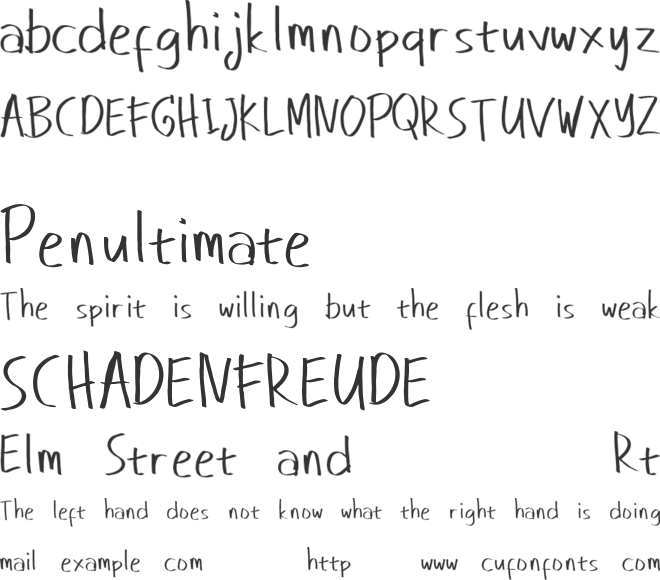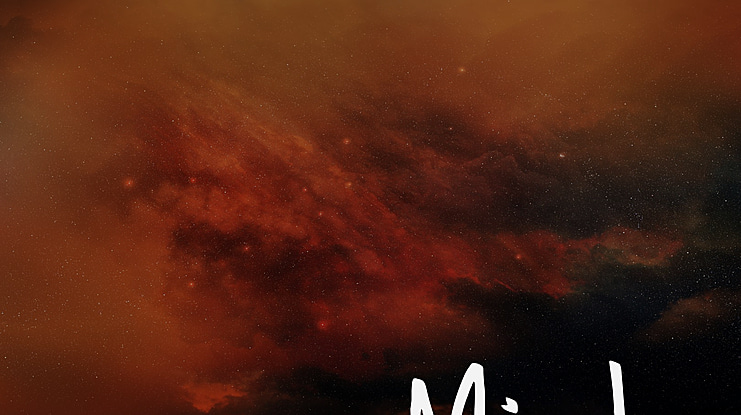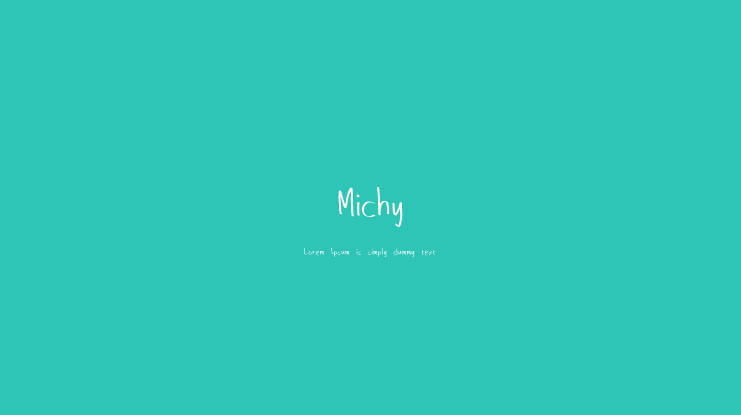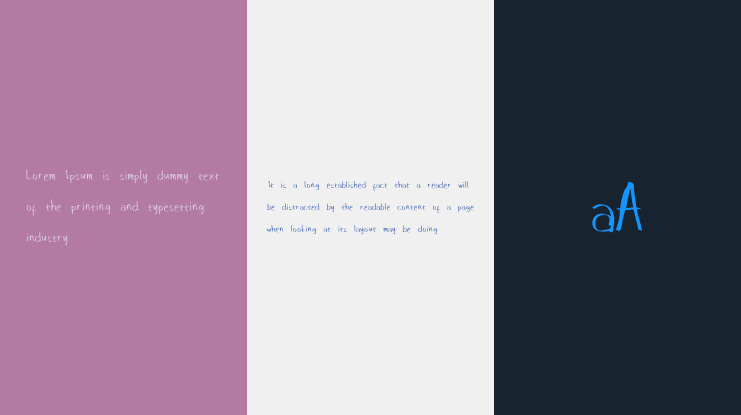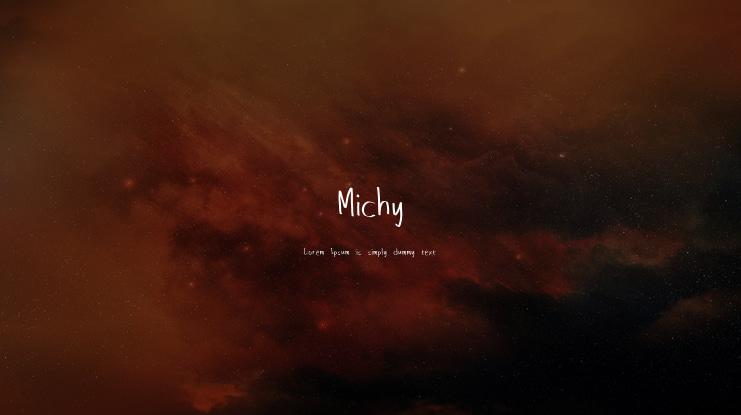
Michy Font
Masyafi std
Michy is a simple and natural handwritten font. It is suitable for any branding, product packaging, invitation, quote, t-shirt, label, poster, logo that you wish to create.